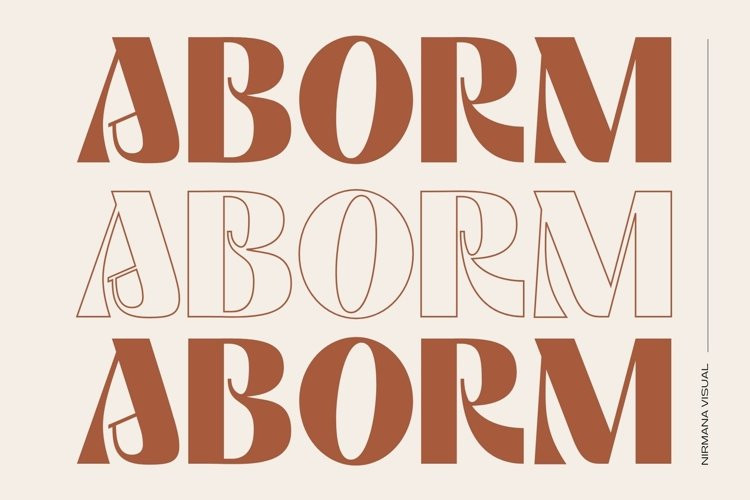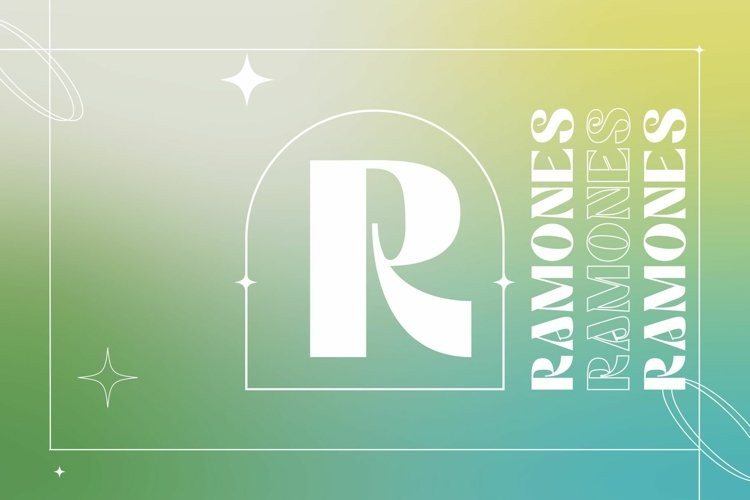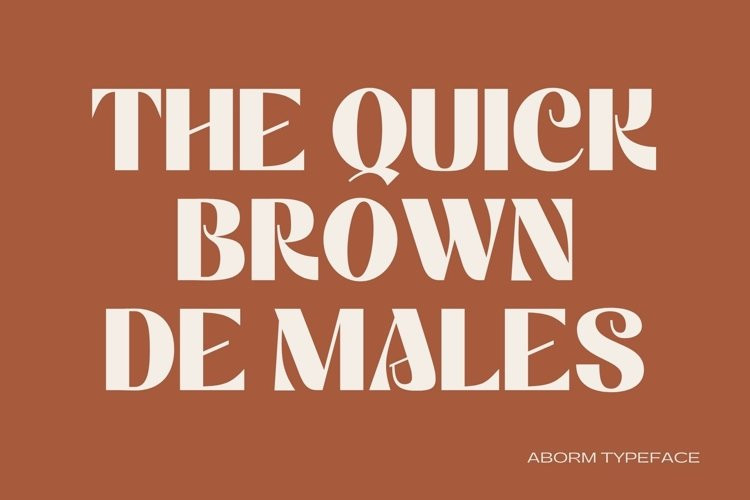
Aborm Font
Aborm FontABORM , contemporary of serif font, inspired by Art Nouveau era.
ABORM offers beautiful typographic harmony for a diversity of design projects, including logos & branding, social media posts, advertisements & product designs.